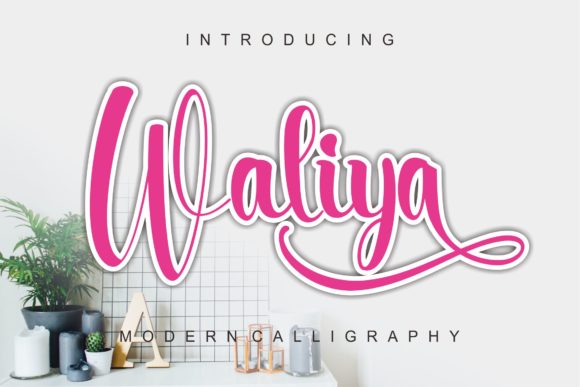
Embrace the allure of Waliya Font, a striking script font family that will captivate your designs with its enchanting grace and timeless elegance. Step into a world of creative possibilities, where your words dance across the page with a touch of delicate artistry.
Waliya Font is more than just a collection of letters; it's an expression of your individuality, a reflection of your unique style. Dive into a sea of limitless creativity, where your design dreams come to life with a font that speaks volumes.
With its intricate curves and flowing lines, Waliya Font weaves a spellbinding aura that will leave your audience spellbound. Its elegant charm adds a touch of sophistication to any project, whether you're crafting logos, invitations, or social media posts.
Imagine your words flowing across the page, each letter a work of art, each word a testament to your impeccable taste. Waliya Font transforms ordinary text into captivating masterpieces, leaving an indelible mark on your audience's minds.
But Waliya Font is not just visually stunning; it's also remarkably versatile. Its diverse range of applications makes it the perfect choice for a wide array of creative projects. From branding and marketing to packaging and product design, Waliya Font adapts seamlessly, adding a touch of elegance wherever it goes.
Unlock the potential of Waliya Font today and embark on a creative journey like no other. Its exceptional quality and captivating beauty will elevate your designs to new heights, leaving your audience breathless. Experience the magic of Waliya Font and let your creativity soar.